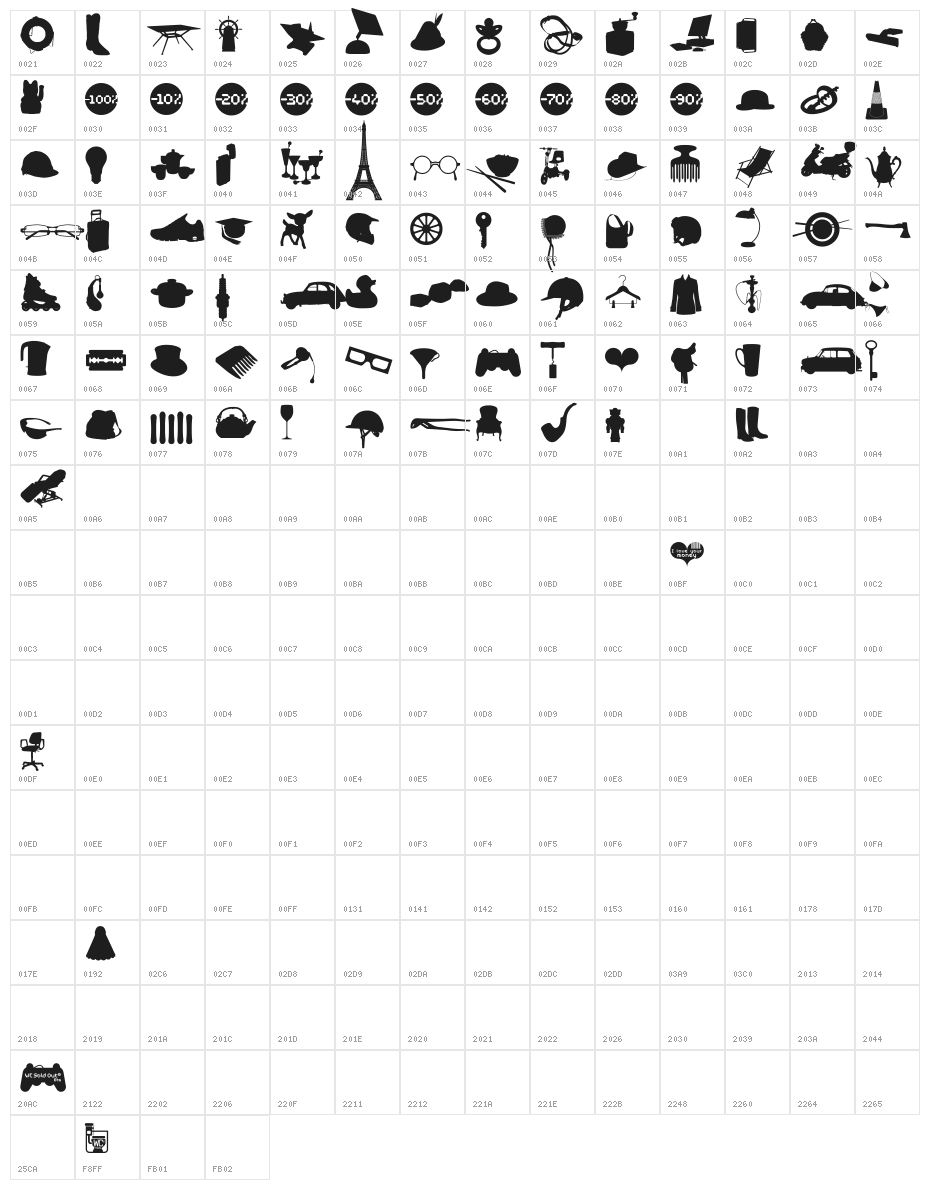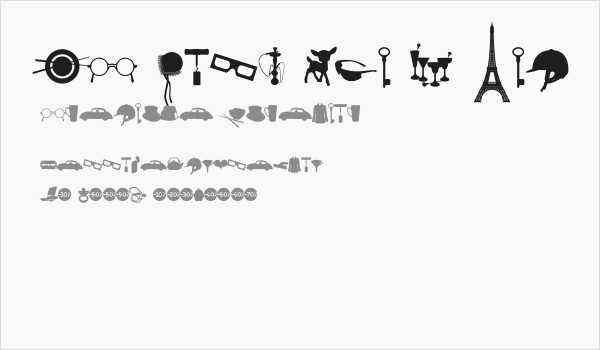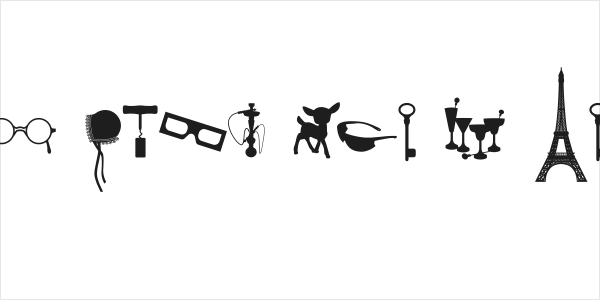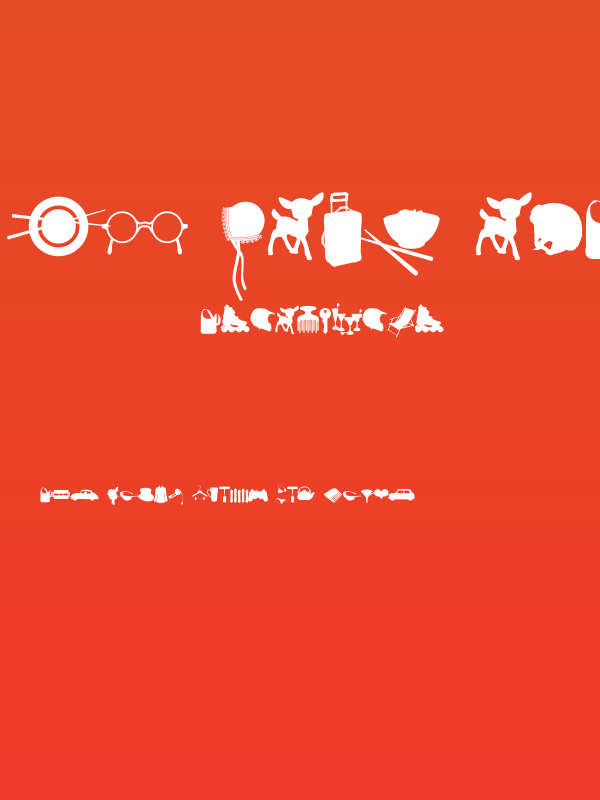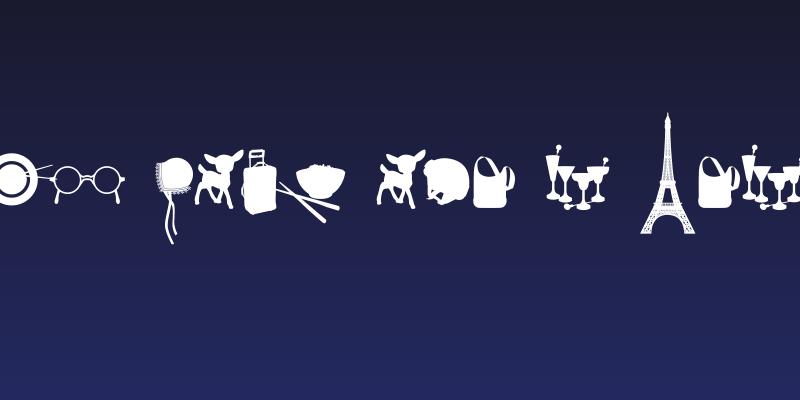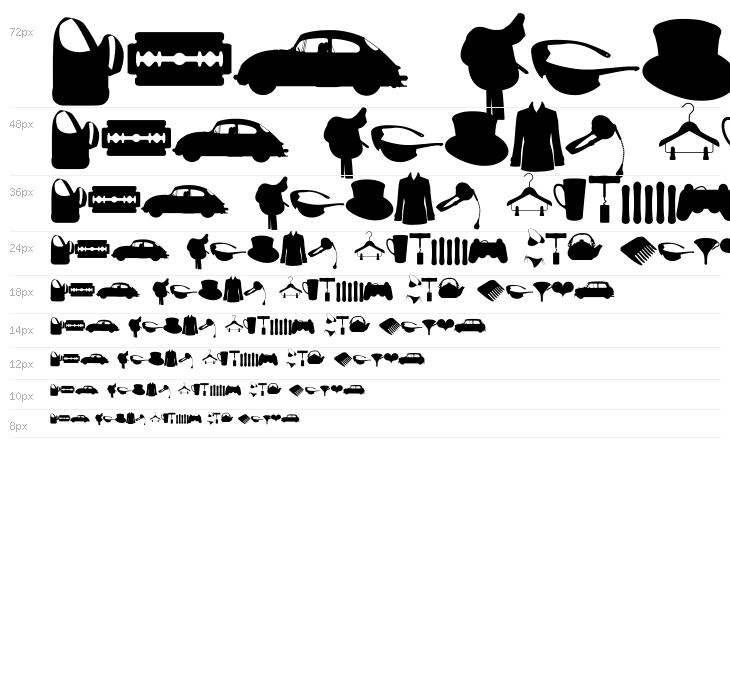
WC Sold Out A Bta Font
WC Sold Out A Bta Description
A highly decorative dingbat font composed entirely of solid black silhouettes representing various objects, such as vehicles, household items, clothing, and symbols, with each character mapped to a unique pictogram rather than a traditional letterform.
Overall StyleDecorative, Playful
Use CaseIcons, Decorative elements, Visual storytelling
Proposed ProjectsInfographics, visual aids, educational materials, icon sets, playful branding, and creative posters.